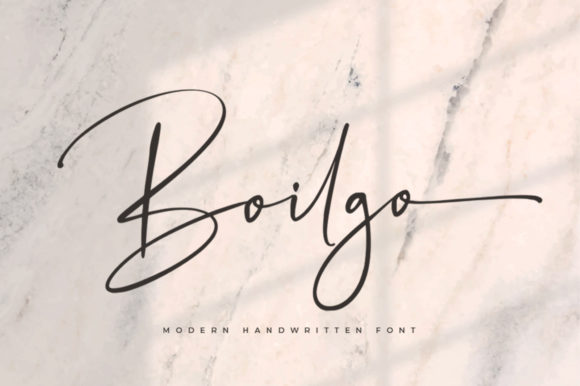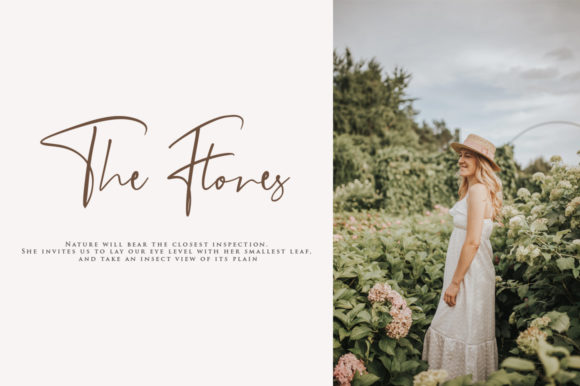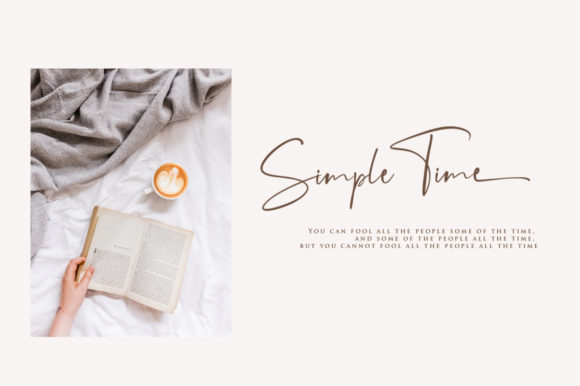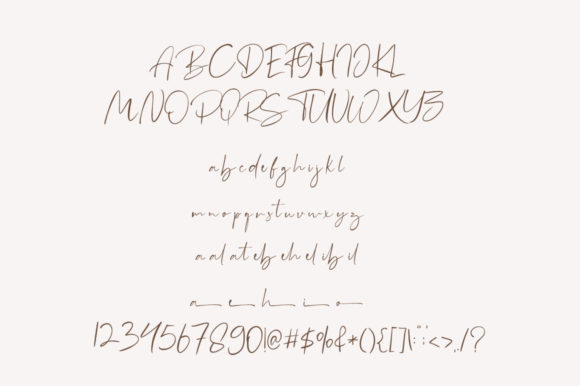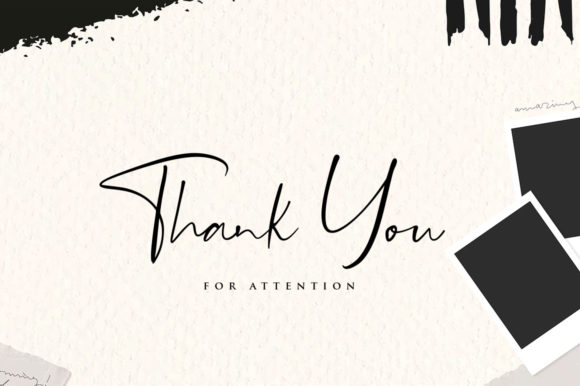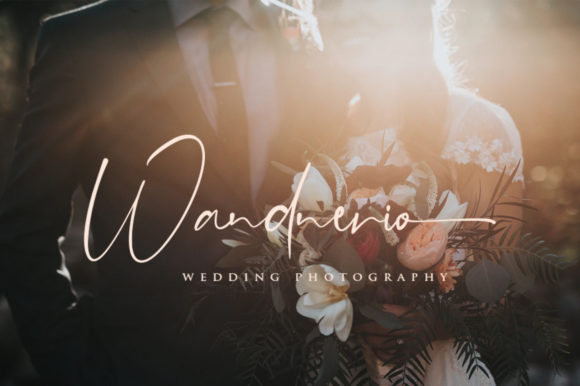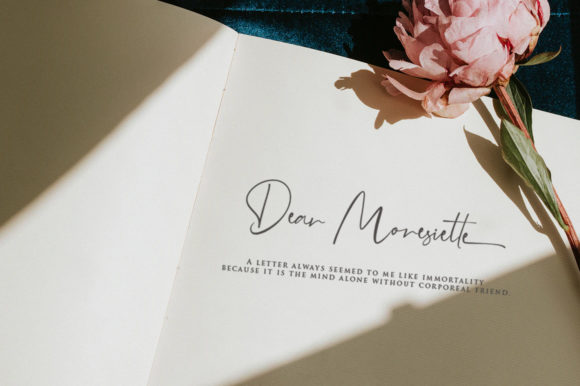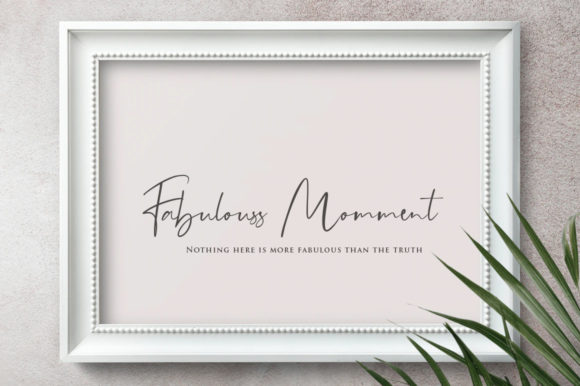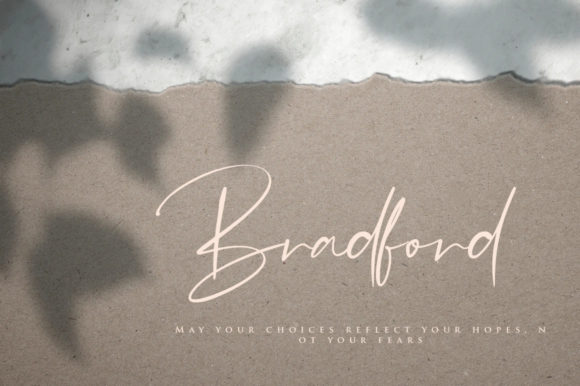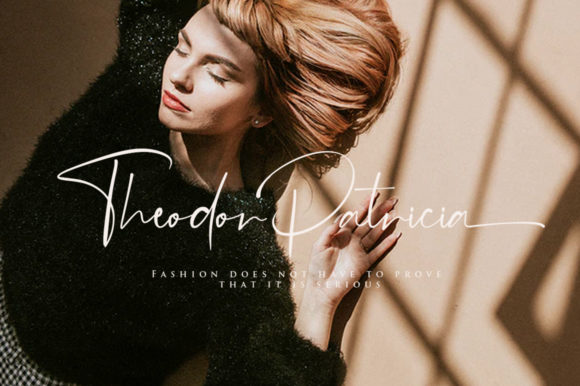
Boilgo Font
About Boilgo Font
Boilgo is a stunning font featuring bold and rich alternates and ligatures. Use this typeface to achieve stylish and fresh results!